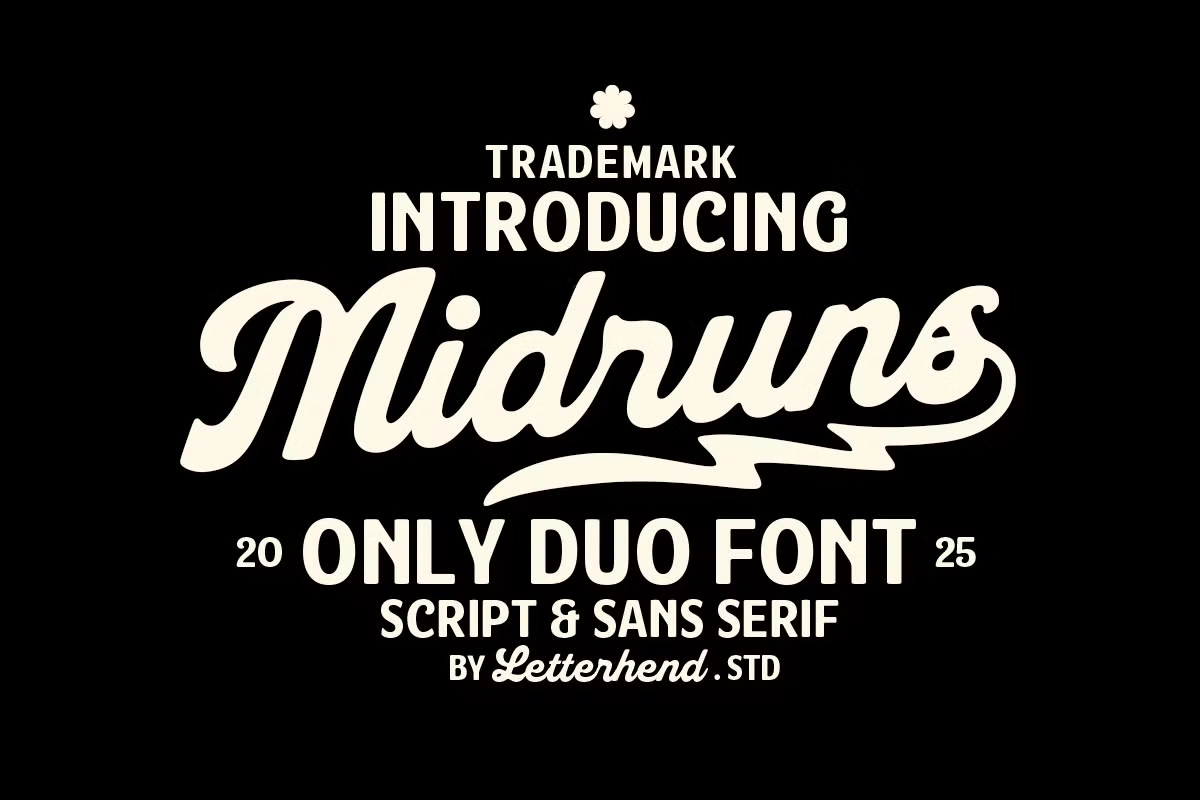
Midruns Font is a striking combination of bold script and sans serif styles, designed to bring a perfect balance of vintage and modern aesthetics to your projects. Its smooth curves and retro vibe make it an excellent choice for those looking to add character and uniqueness to their designs. Whether you’re creating branding materials, logos, or social media graphics, this font duo ensures a professional yet eye-catching appeal.
The script font in Midruns Font is full of energy and personality, making it stand out in any design. Its bold strokes and fluid motion add a handcrafted touch, perfect for packaging, apparel, and signage. Meanwhile, the sans serif counterpart provides a clean and versatile look, ensuring clarity and readability in various applications. Together, they create a dynamic synergy that enhances both style and functionality.
With Midruns Font, you get the best of both worlds—classic charm and contemporary edge. Its adaptability allows it to work seamlessly across different design needs, from digital platforms to print materials. Whether you’re aiming for a nostalgic feel or a fresh, modern twist, this font is a must-have for designers seeking versatility and impact.